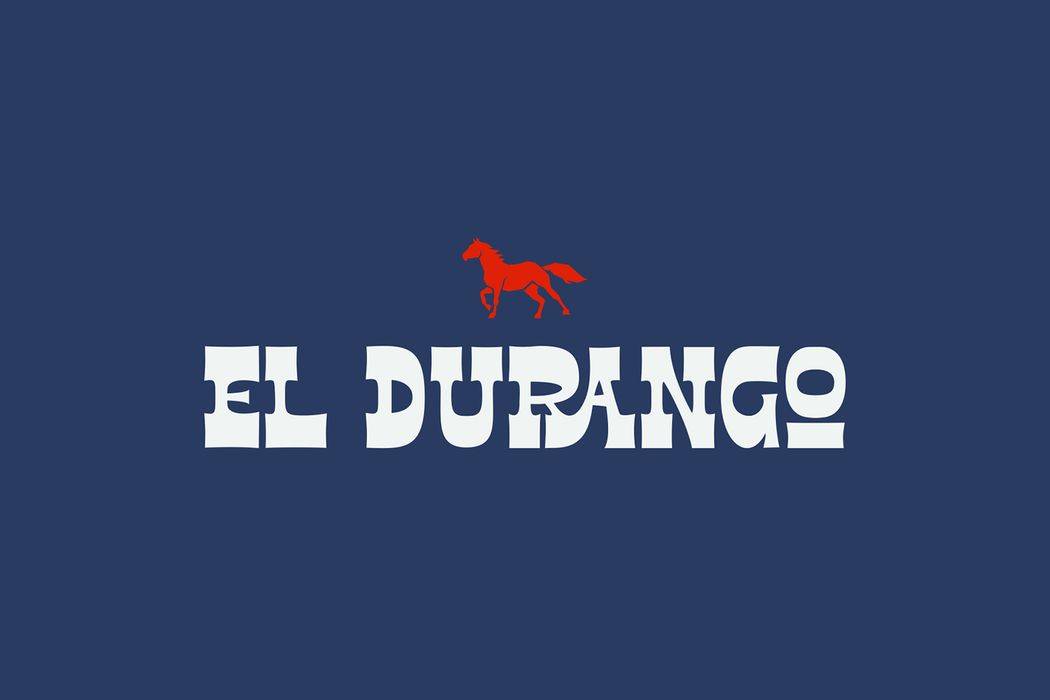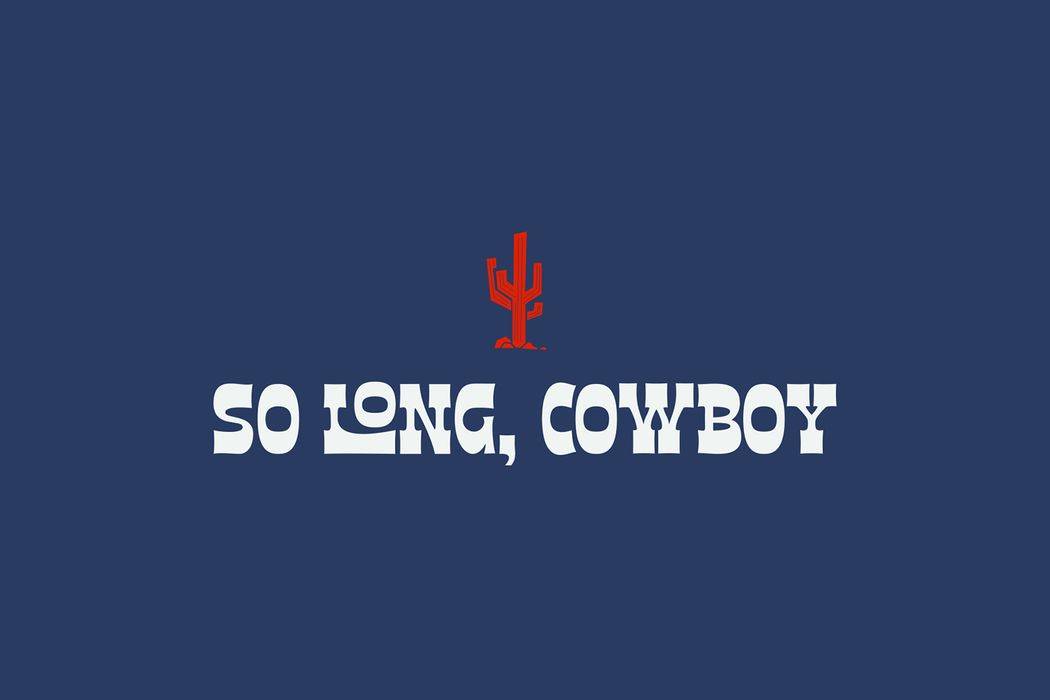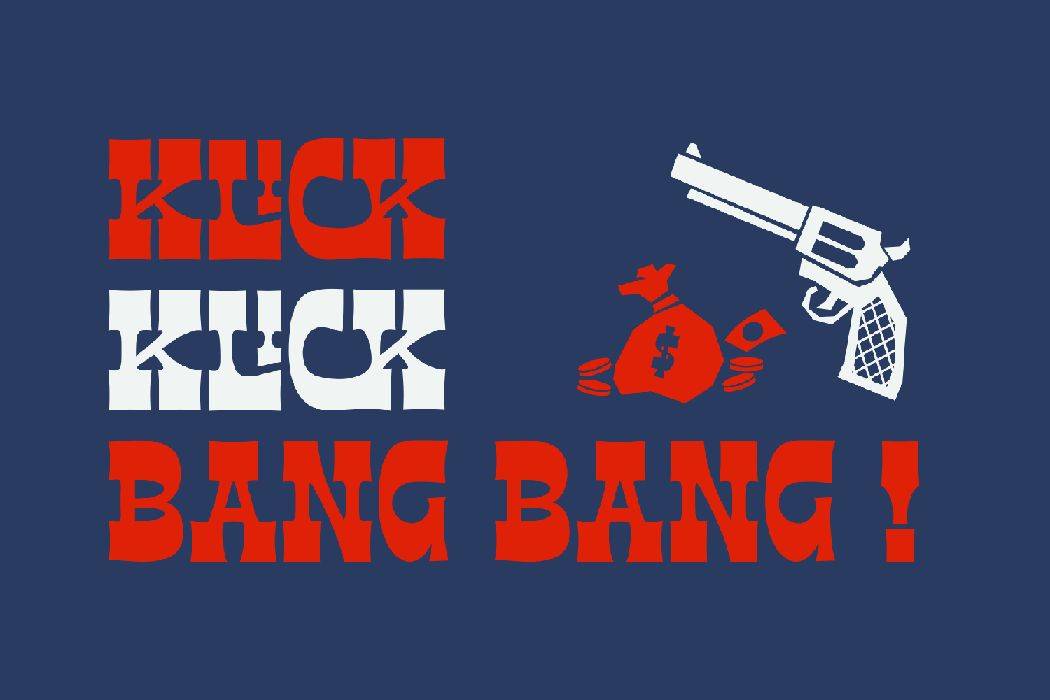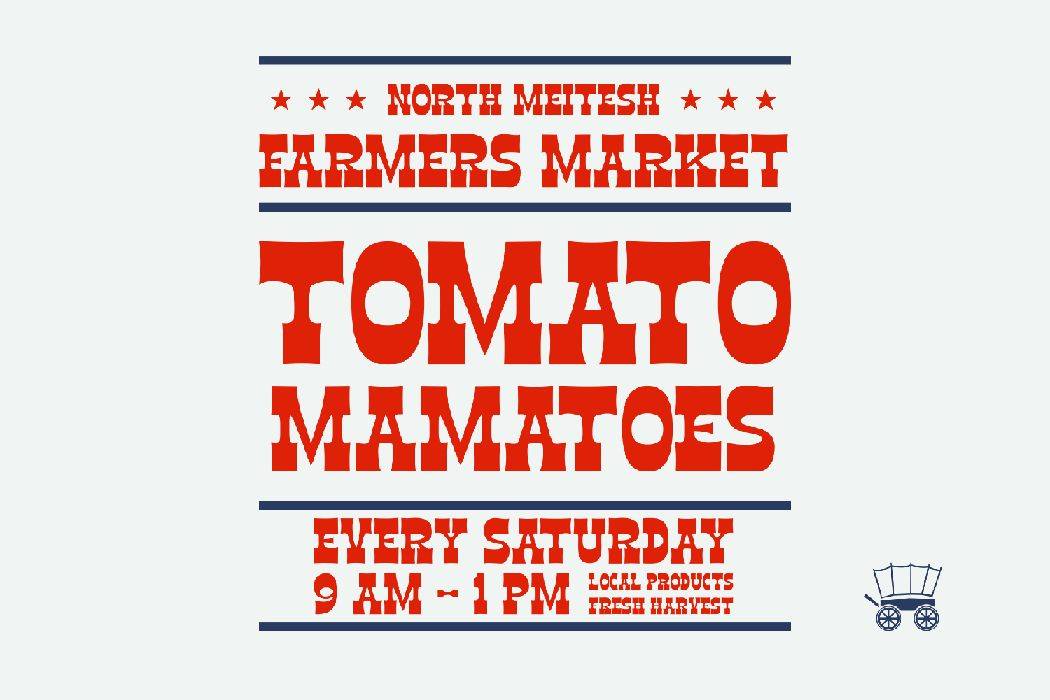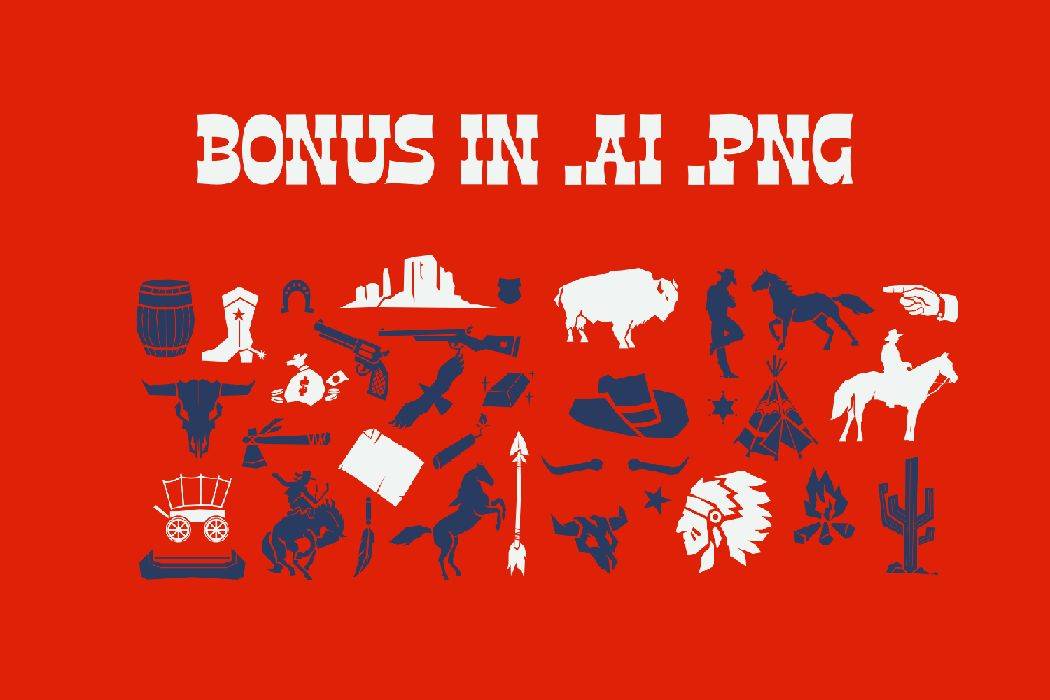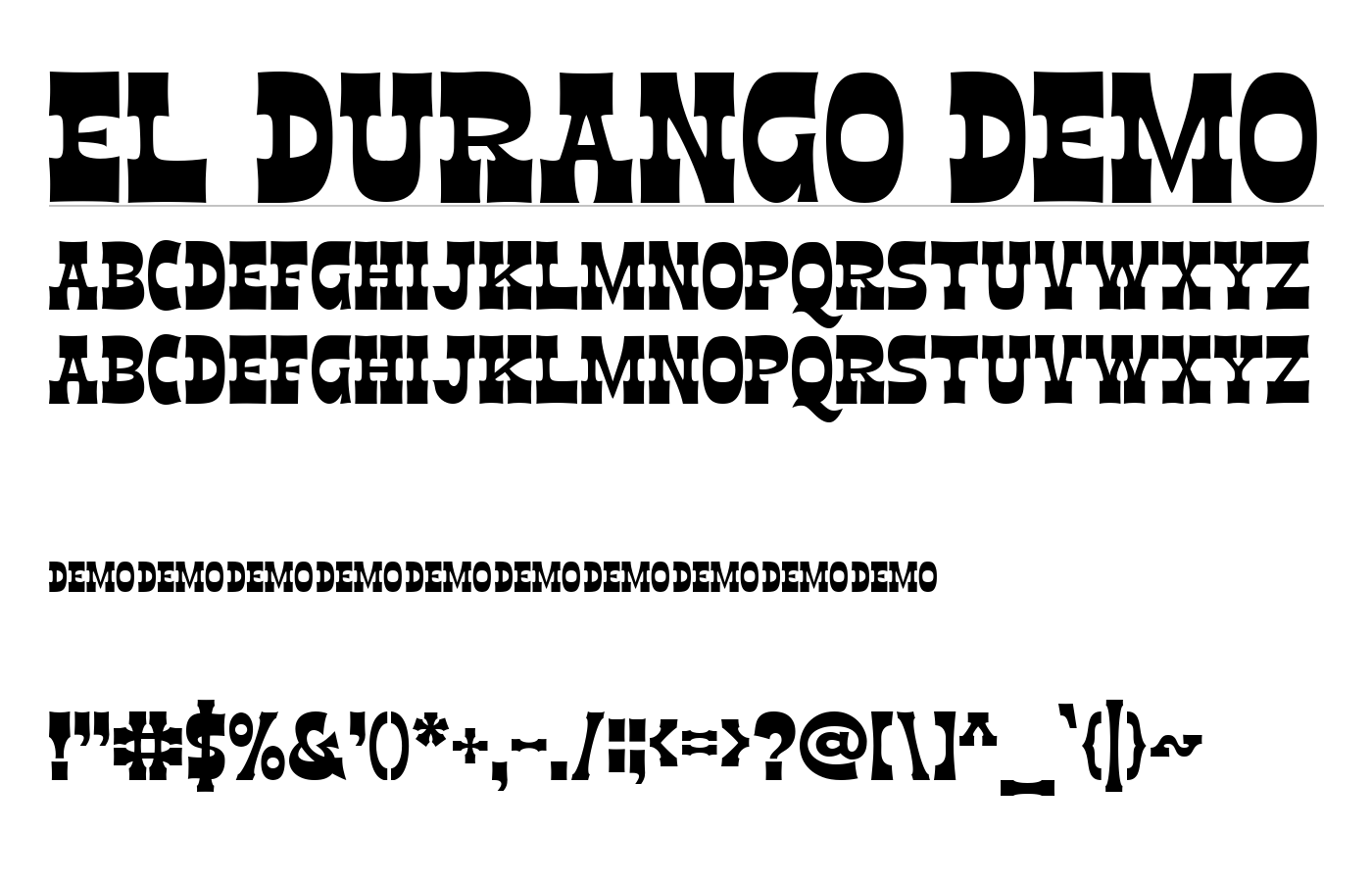
El Durango is a bold, condensed slab serif font with a strong vintage western vibe, characterized by thick, blocky letterforms with subtle curves and sharp, bracketed serifs. Its playful yet sturdy design lends itself well to headlines, posters, and branding projects that seek to convey a rugged, retro charm with a touch of fun. This font works best in display settings where its distinctive personality can shine and grab attention.
El Durango Font
About El Durango Font
| Designer | nami_studio |